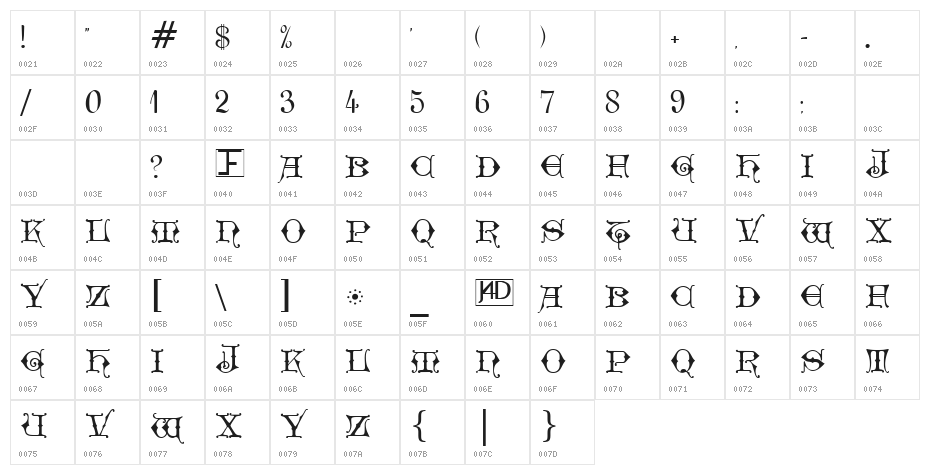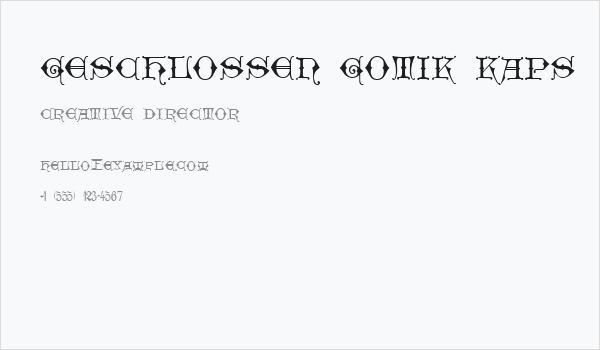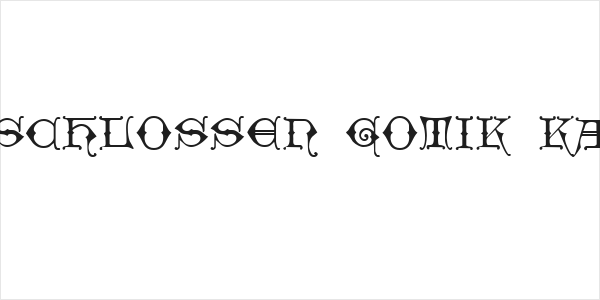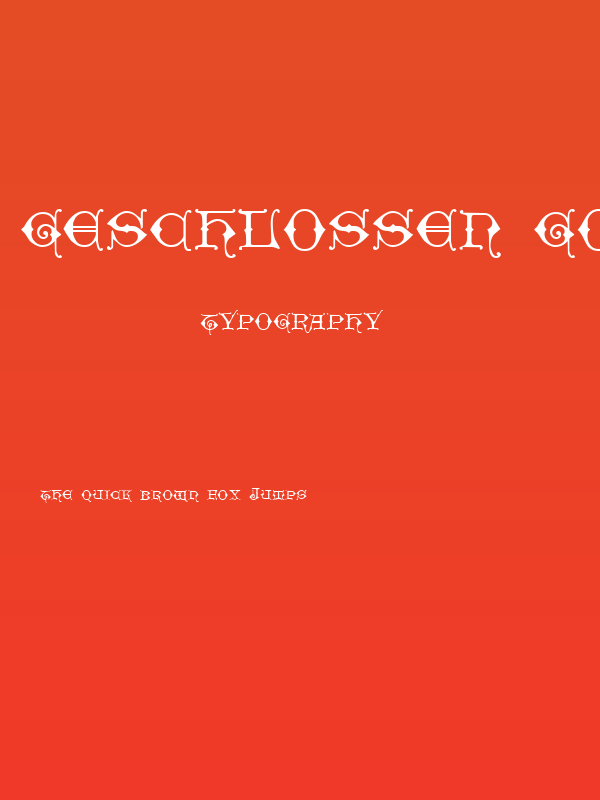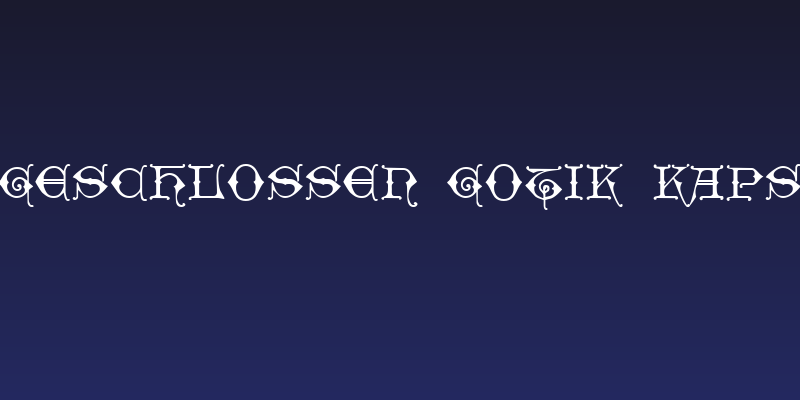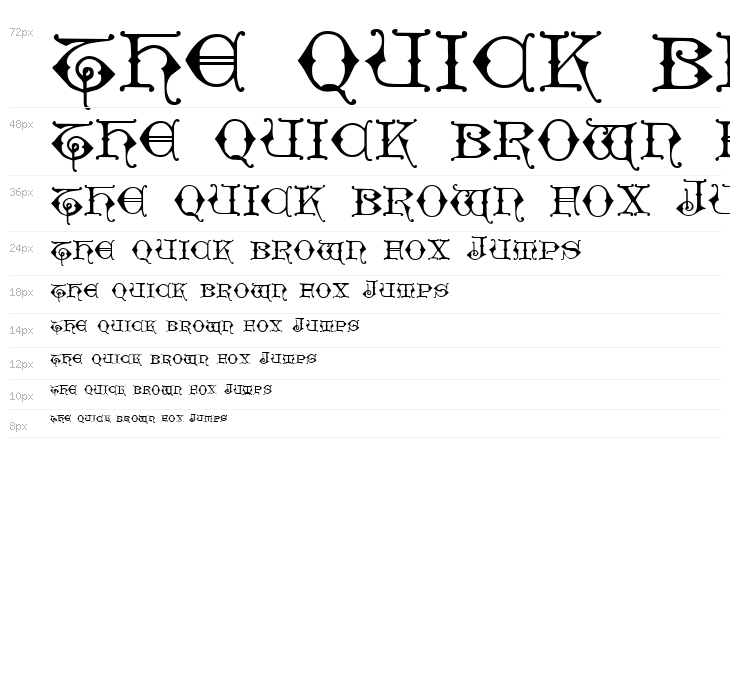
Geschlossen Gotik Kaps Font
Geschlossen Gotik Kaps Description
This font exhibits a distinct Gothic style with intricate and ornate detailing. The characters are characterized by sharp, angular lines and elaborate flourishes that give it a medieval, historical appearance. The uppercase letters are particularly decorative, featuring unique embellishments that enhance their visual appeal. The lowercase letters maintain a consistent style, complementing the uppercase with their own set of ornate features. The numerals are bold and maintain the Gothic theme, ensuring readability while preserving the font's overall aesthetic. Special characters are equally detailed, making them suitable for decorative purposes.
| Use Case | Headlines, Logos, Decorative text |
| Proposed Projects | Ideal for historical or fantasy-themed projects, book covers, posters, and decorative headings. |